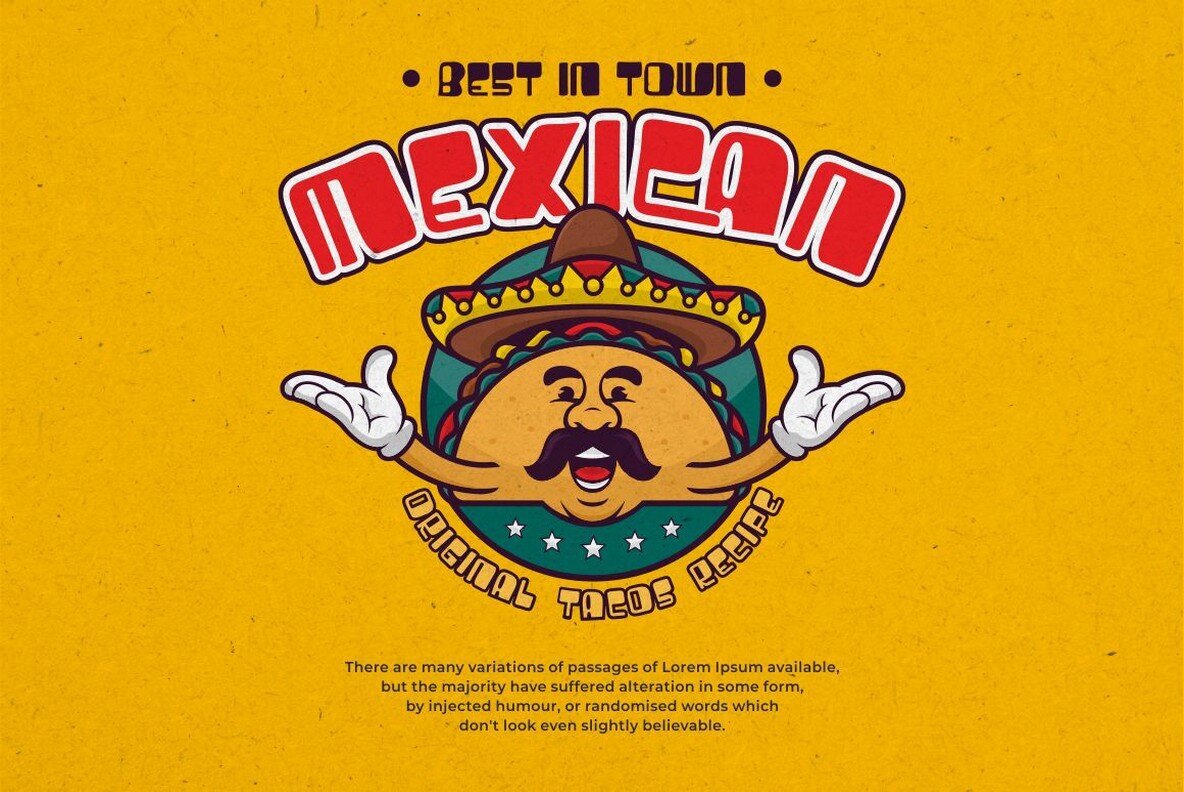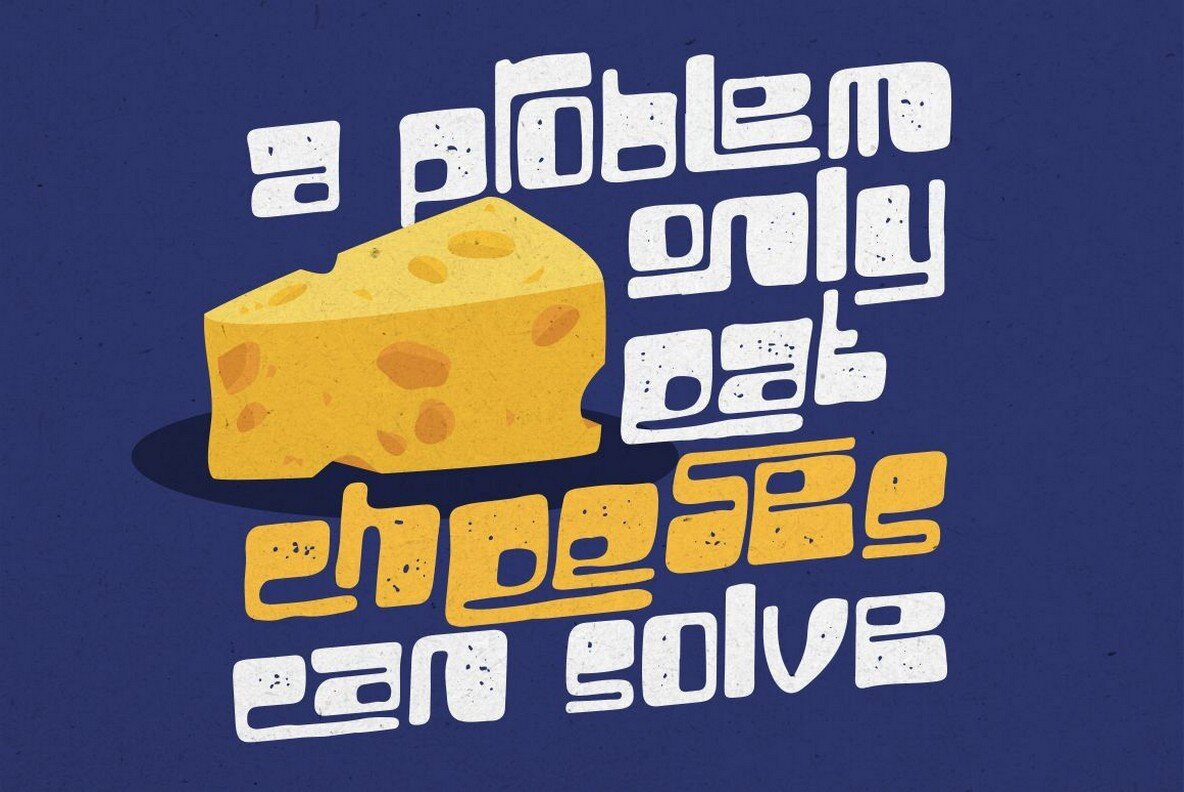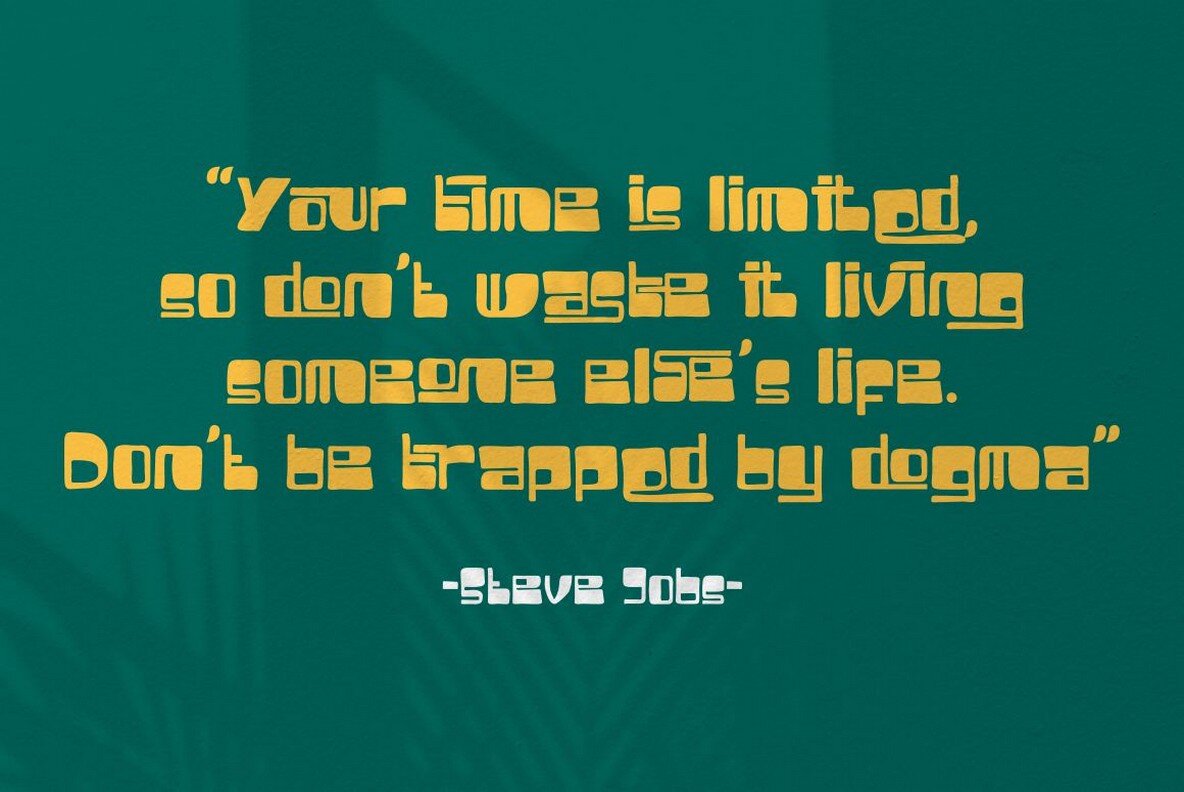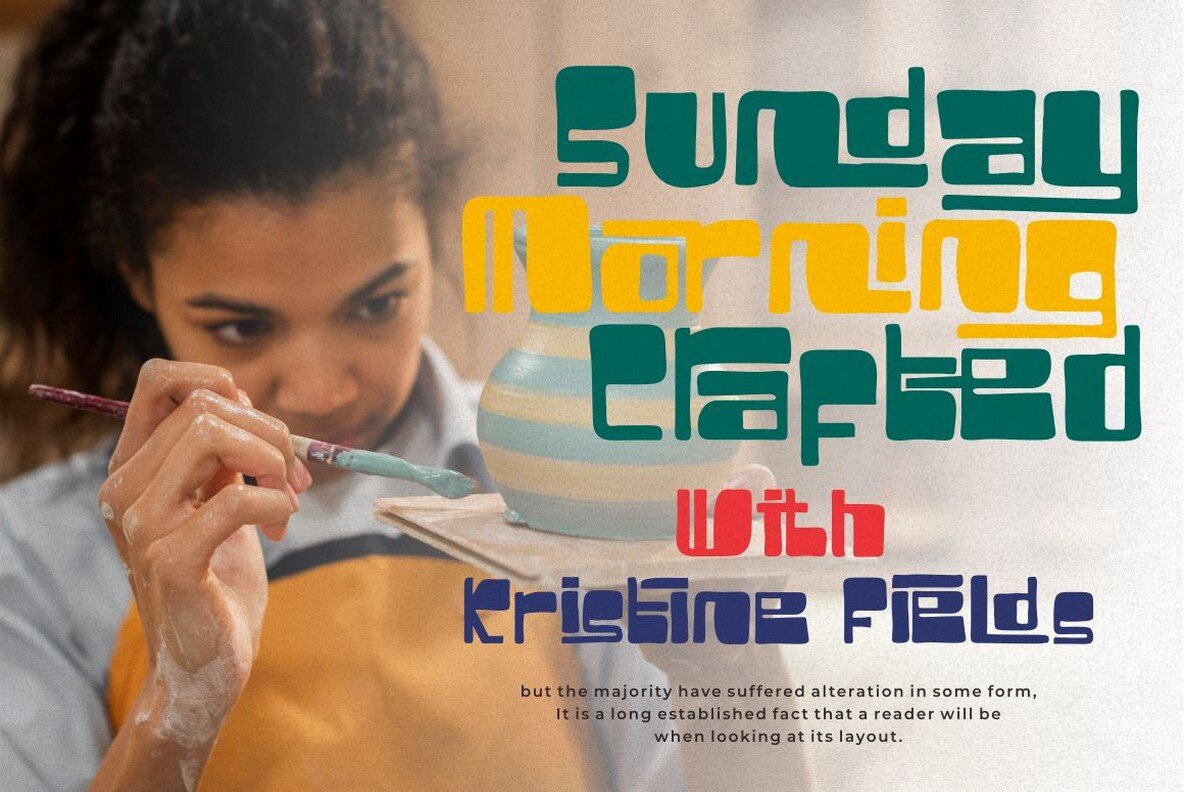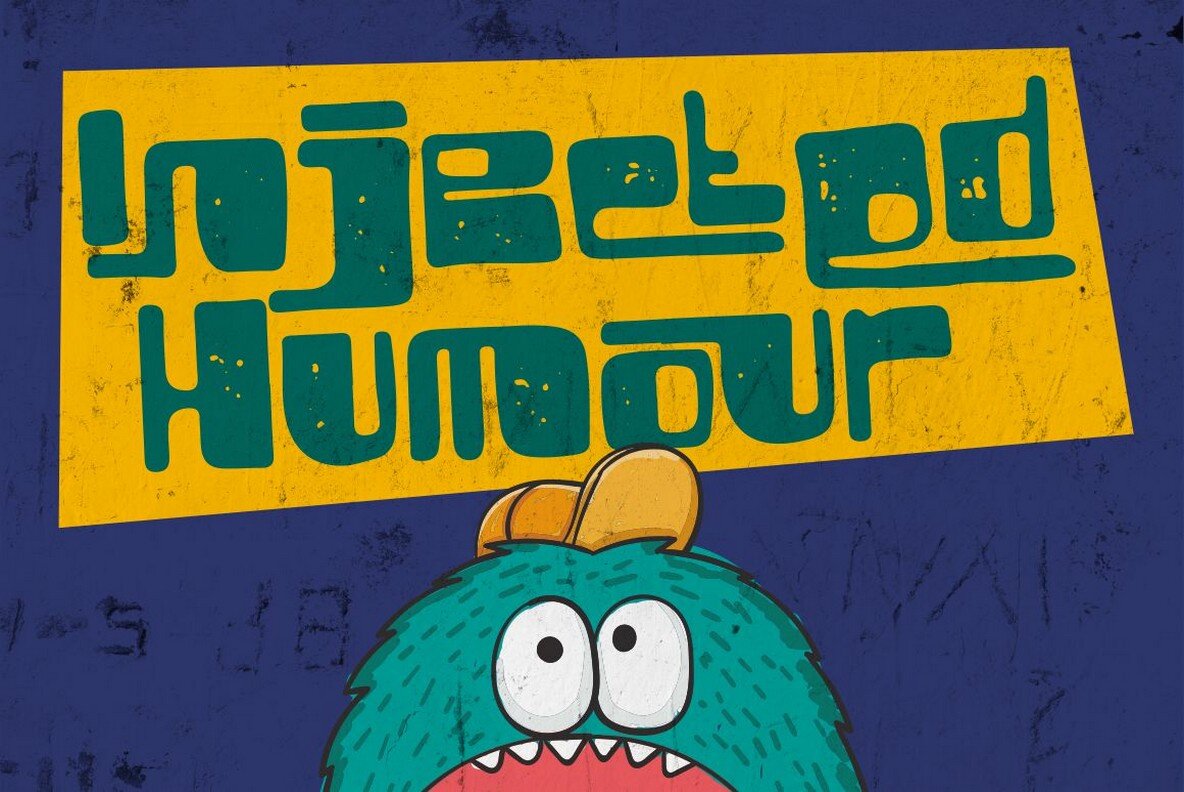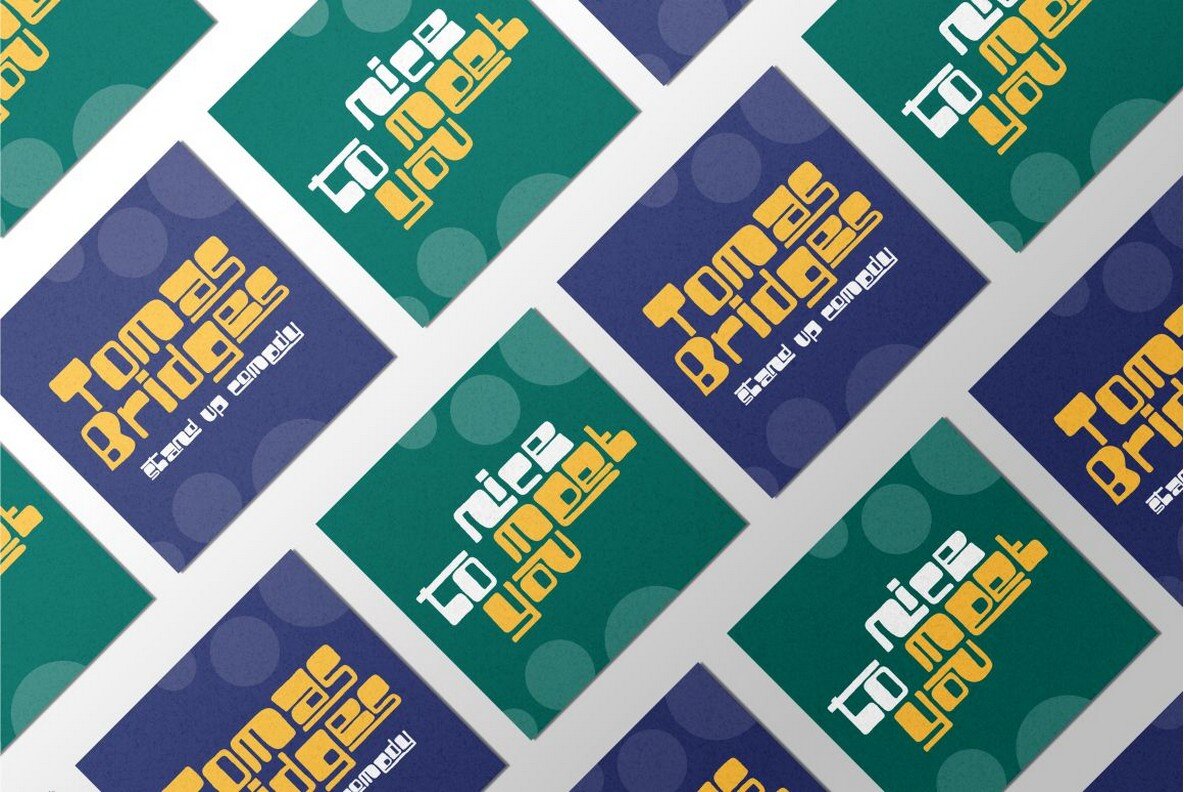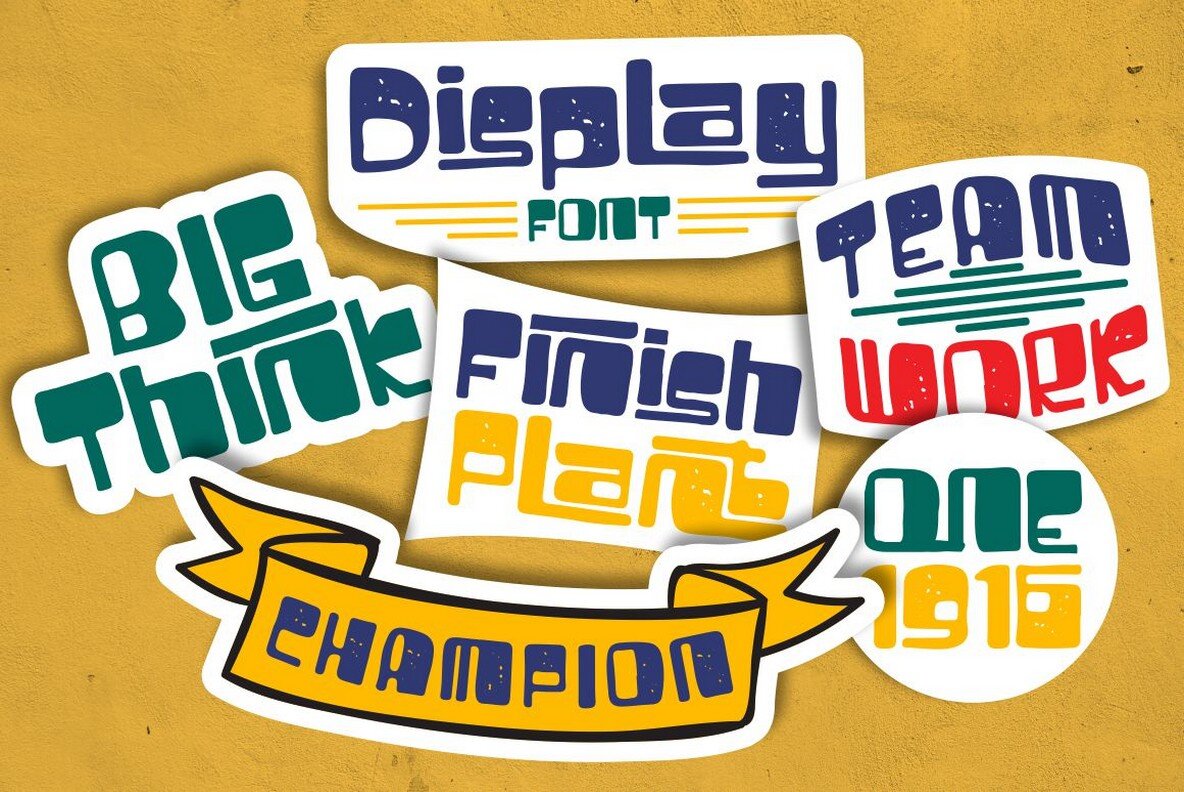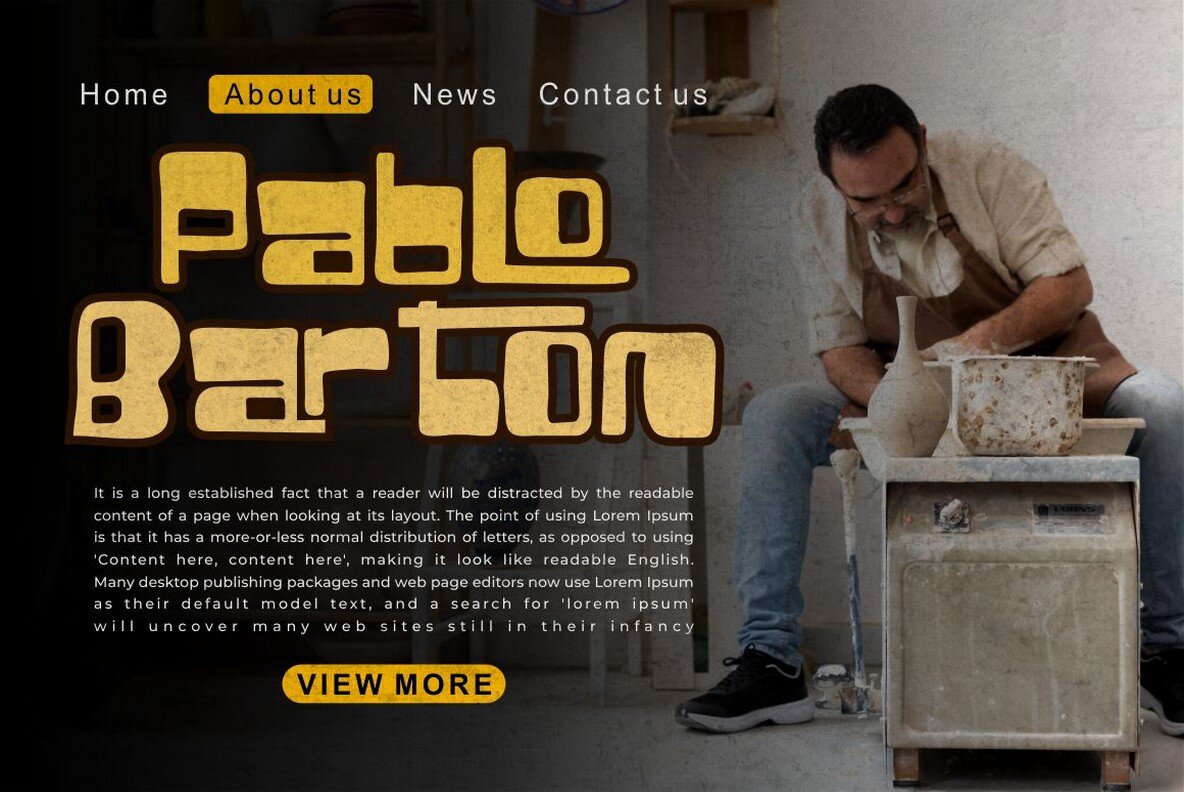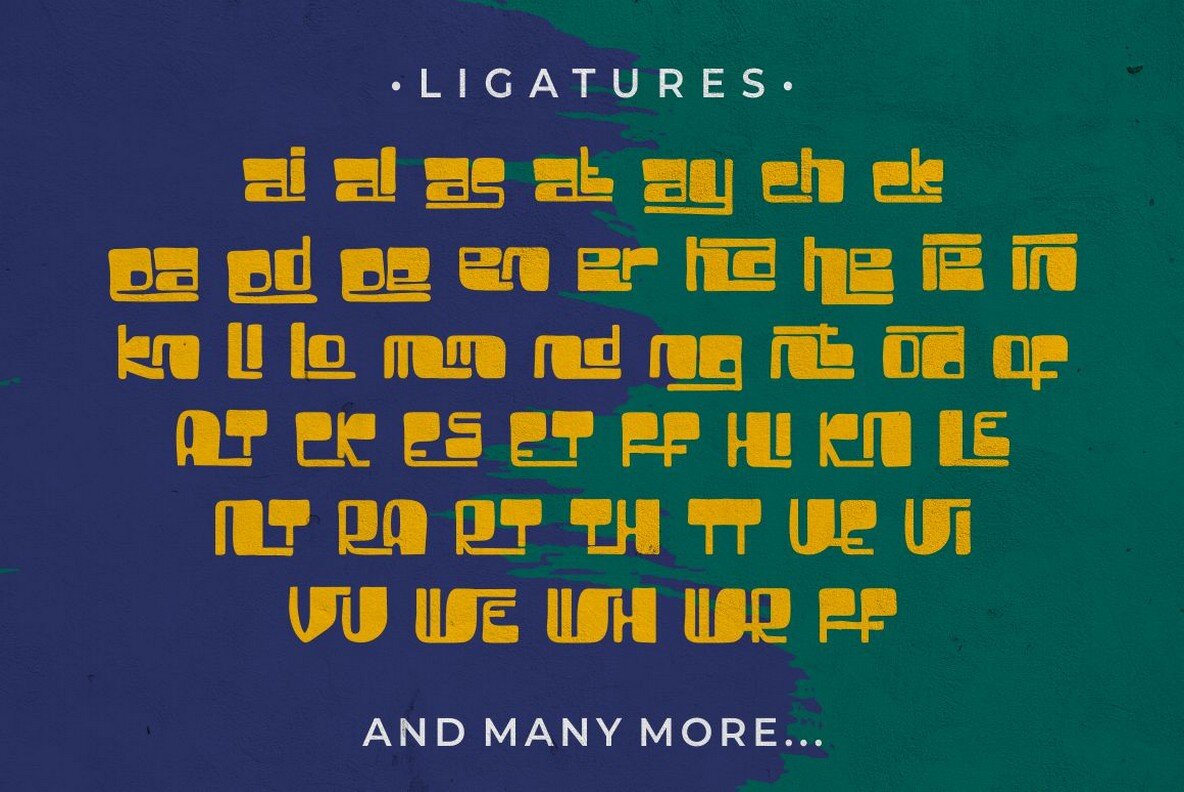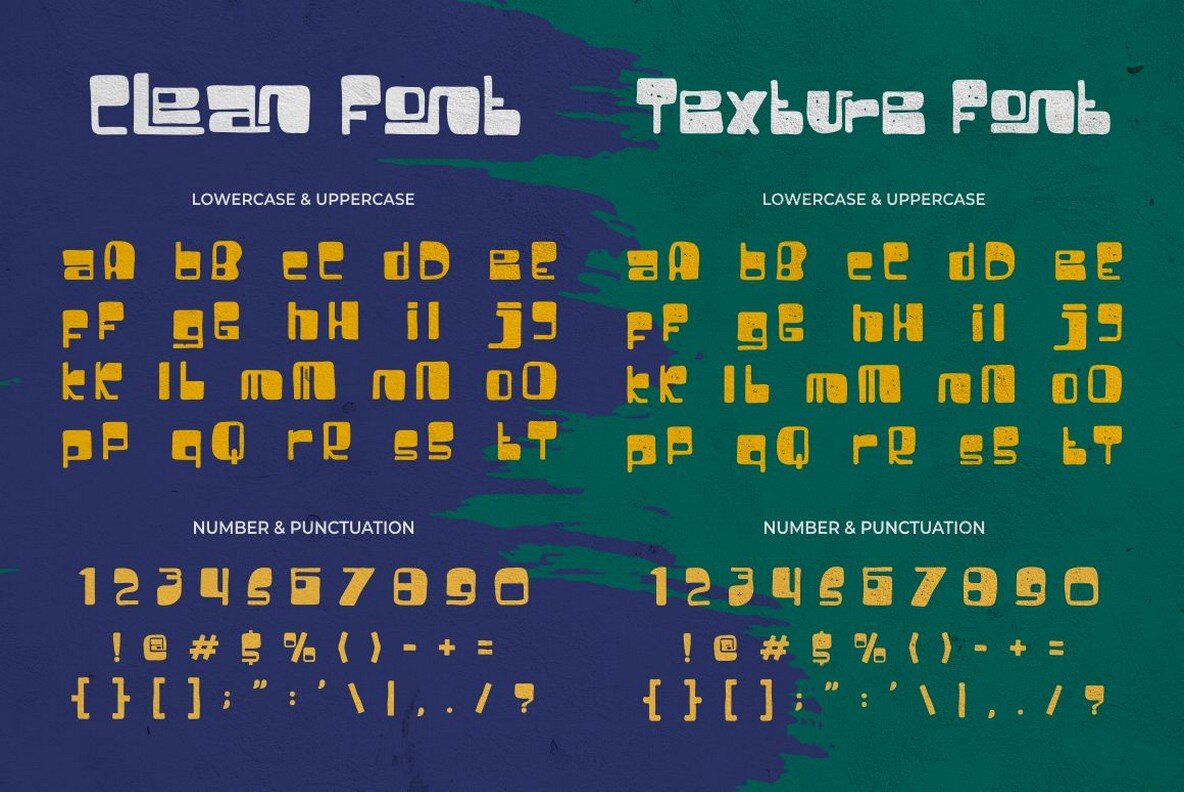
Stone Dense Font
Stone Dense
Stone Dense Rough
Stone Dense emerges as a captivating choice for those seeking a font that balances playfulness with boldness. Characterized by its extensive collection of 160 ligatures, this typeface infuses a unique charm into any project. Its distinctive bold structure, complemented by the varied widths of the characters, makes it ideal for impactful design endeavors. Versatile in application, Stone Dense is particularly suited for projects demanding strong visual statements. Its suitability spans a broad spectrum of uses, such as branding, logos, titles, headlines, magazines, and even apparel design. The font ensures multilingual support, enabling a wider reach and application in diverse creative contexts. Features:Stone Dense: A Playful Display Typeface